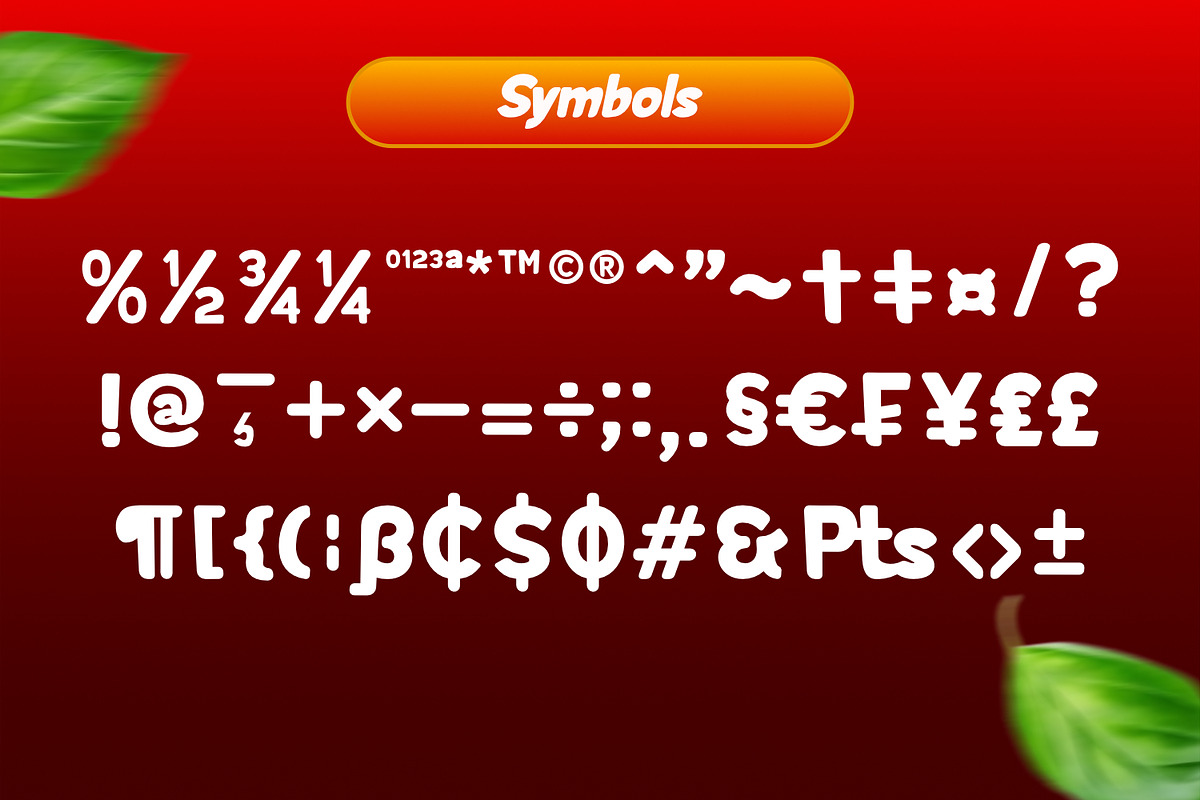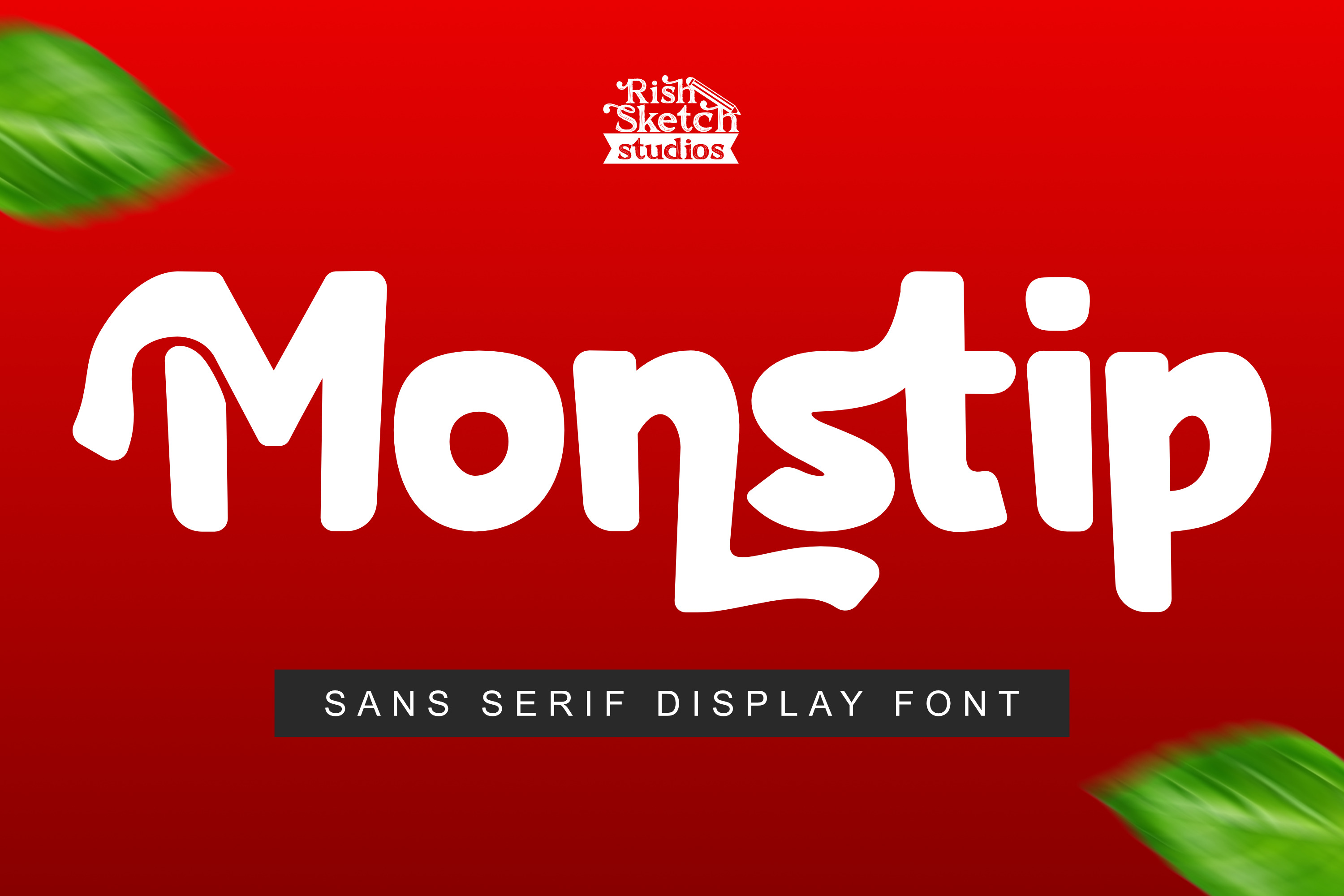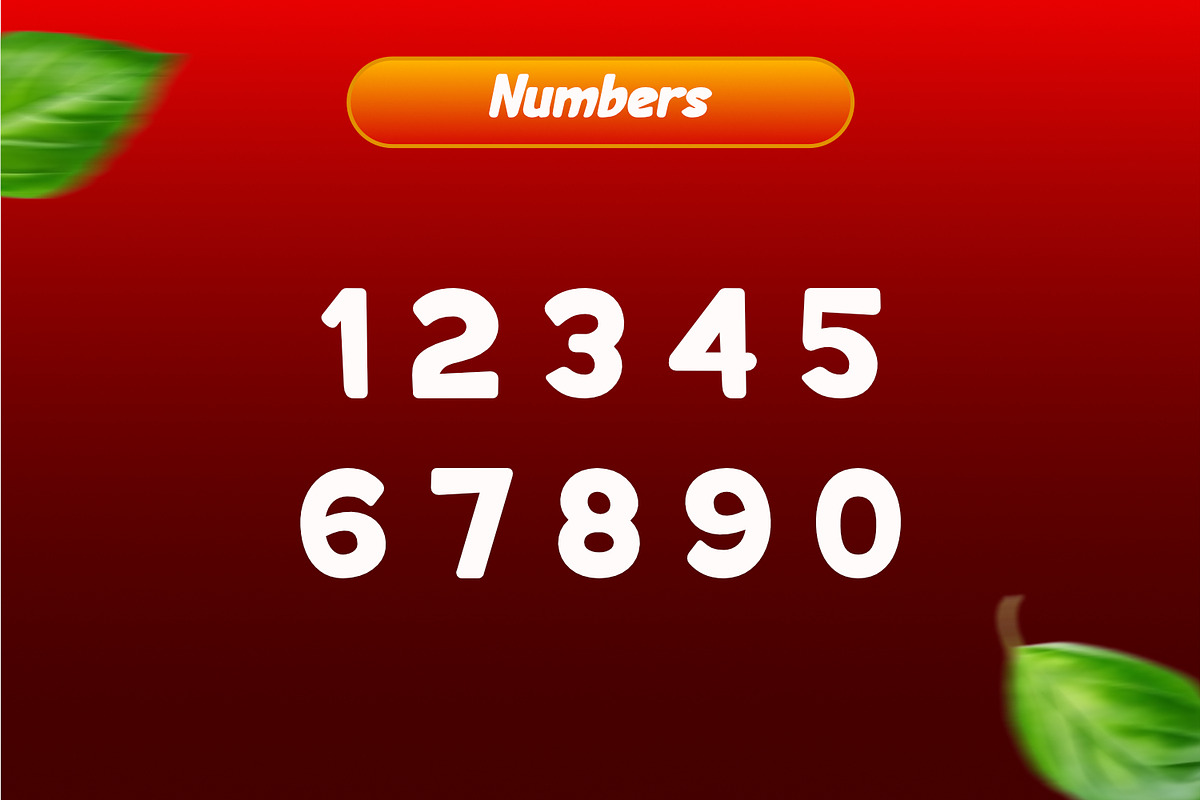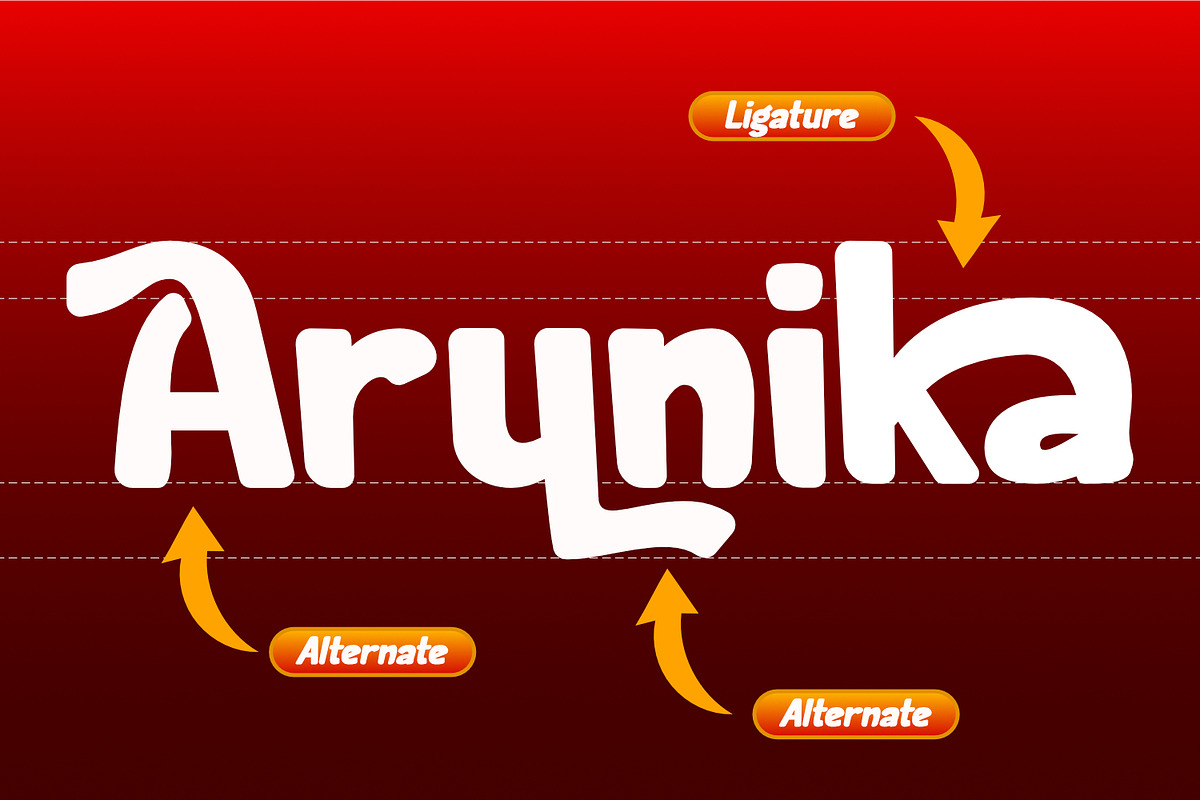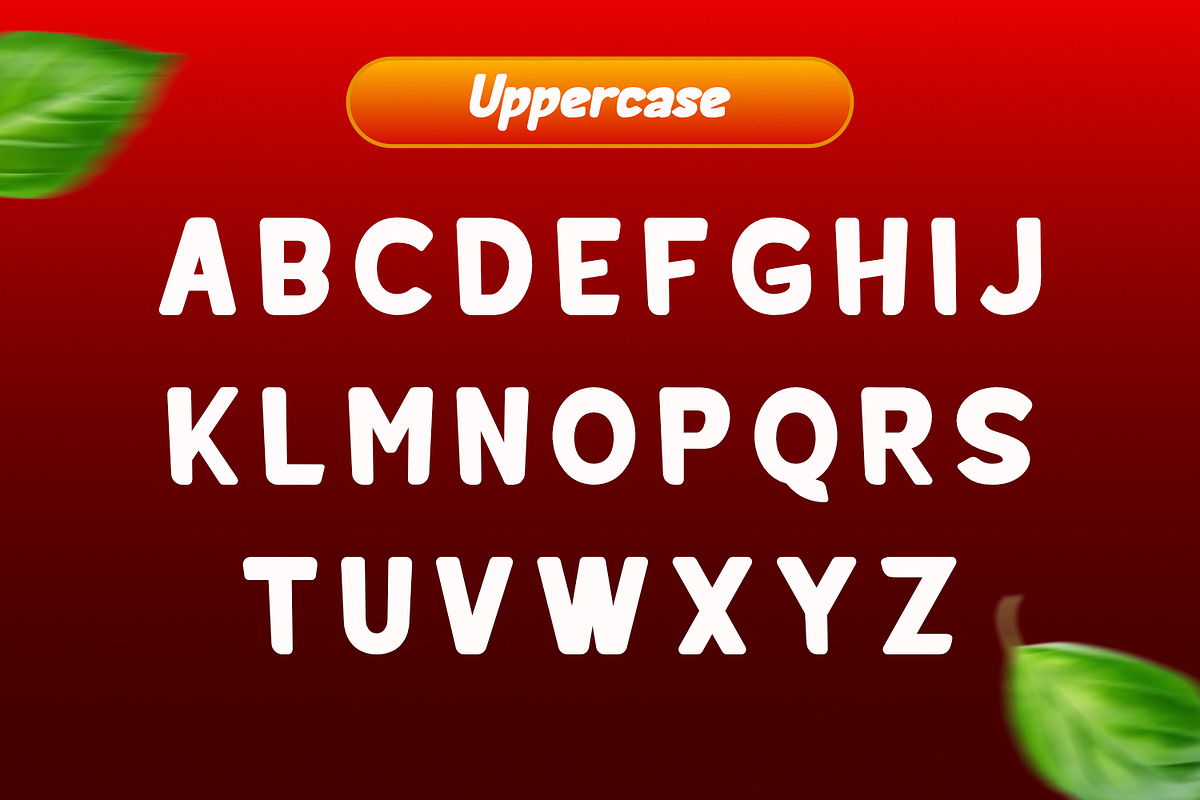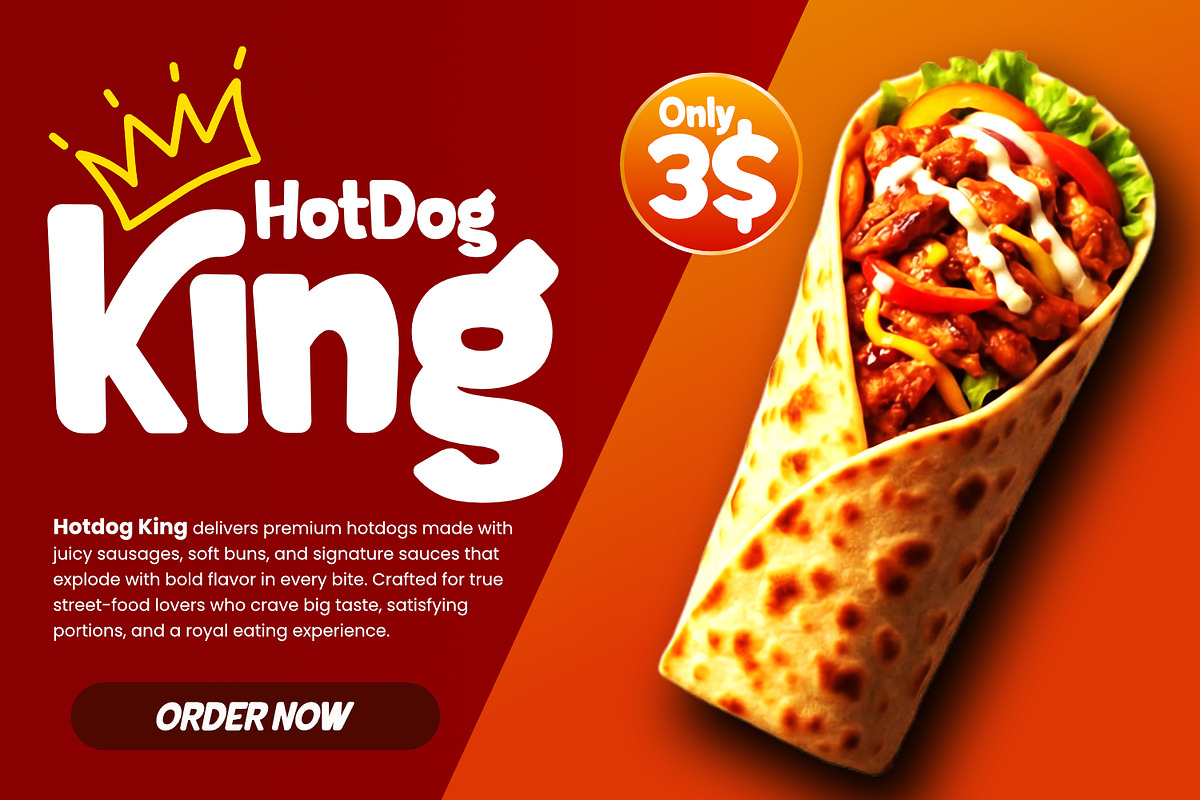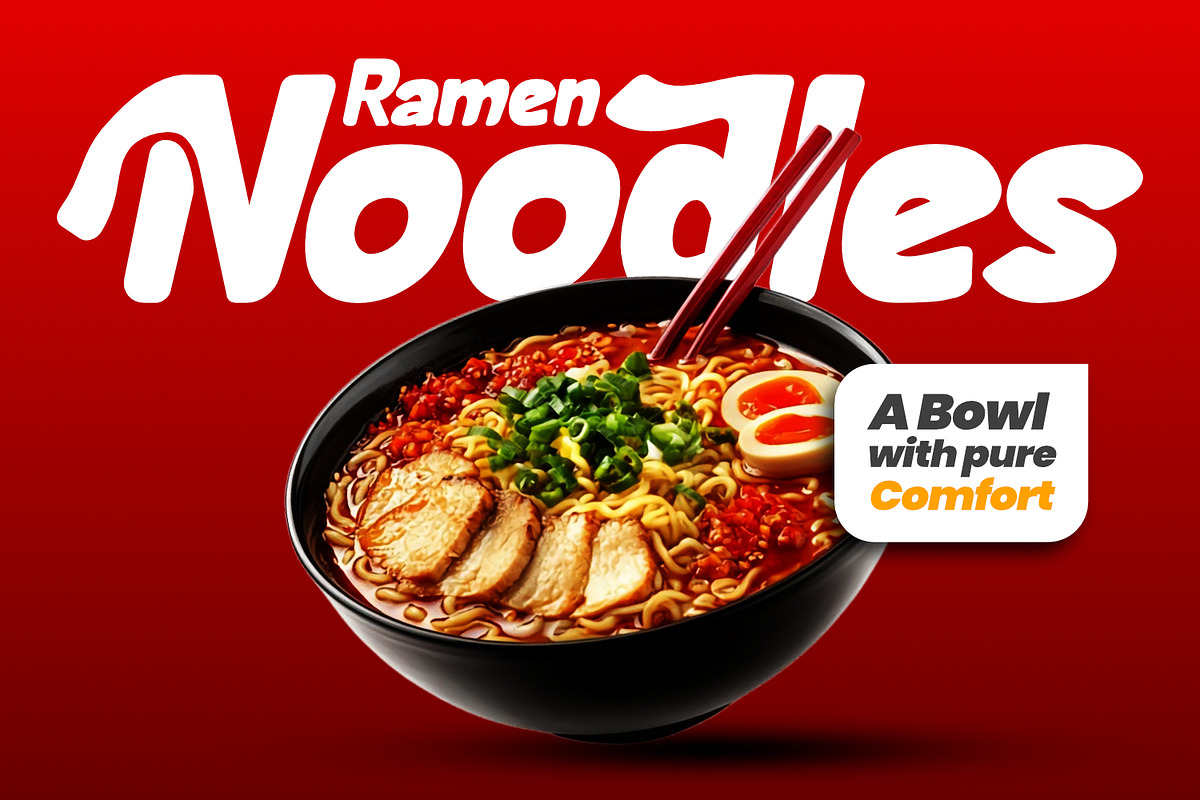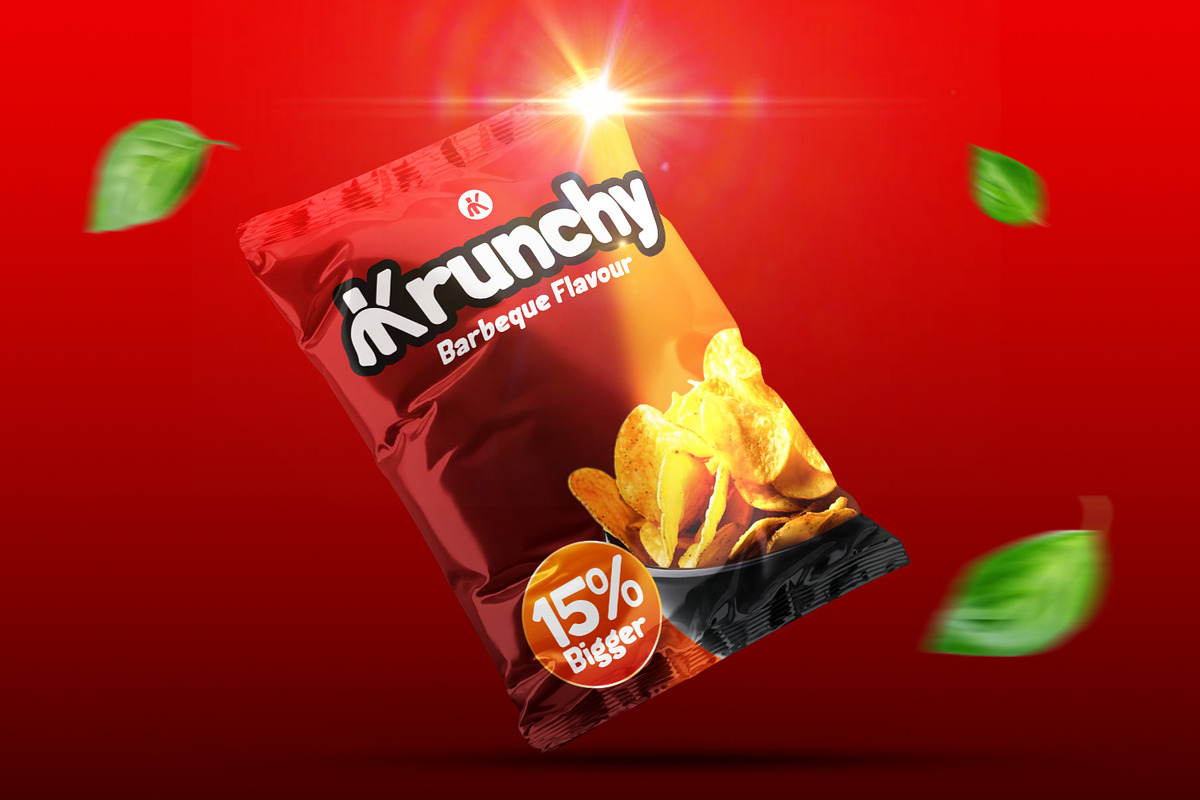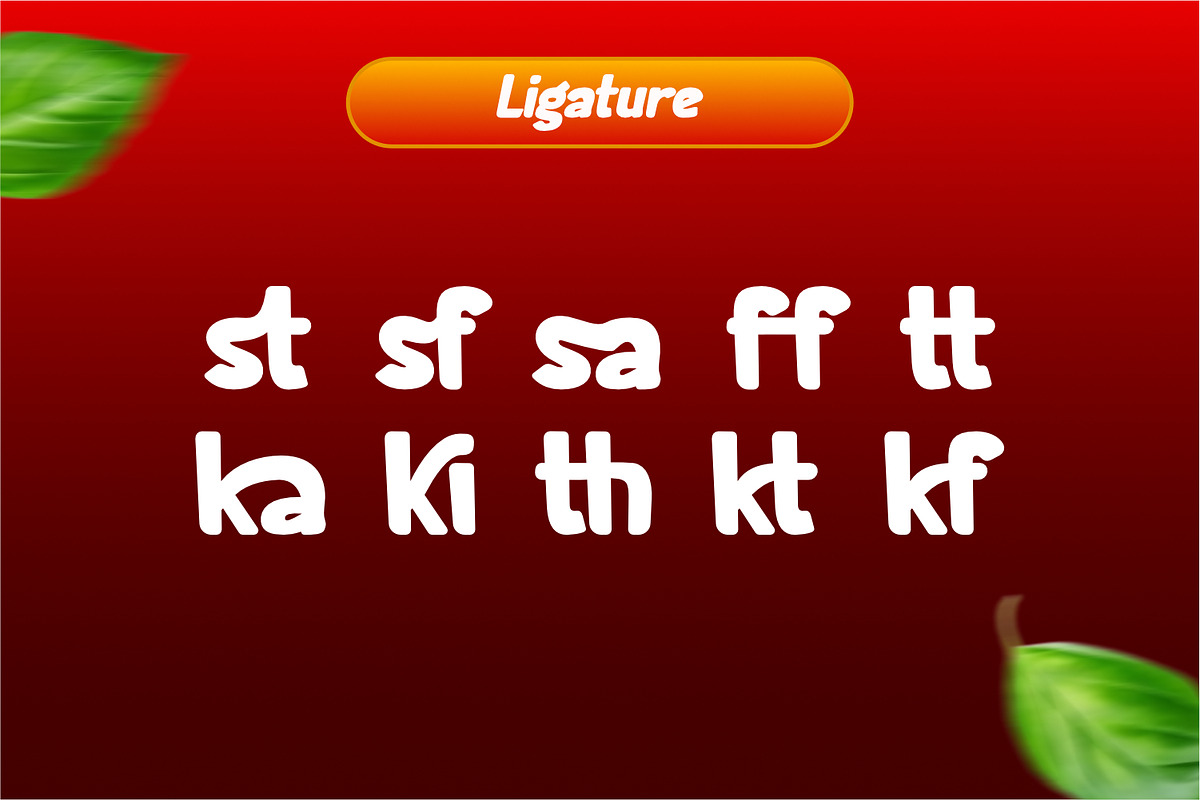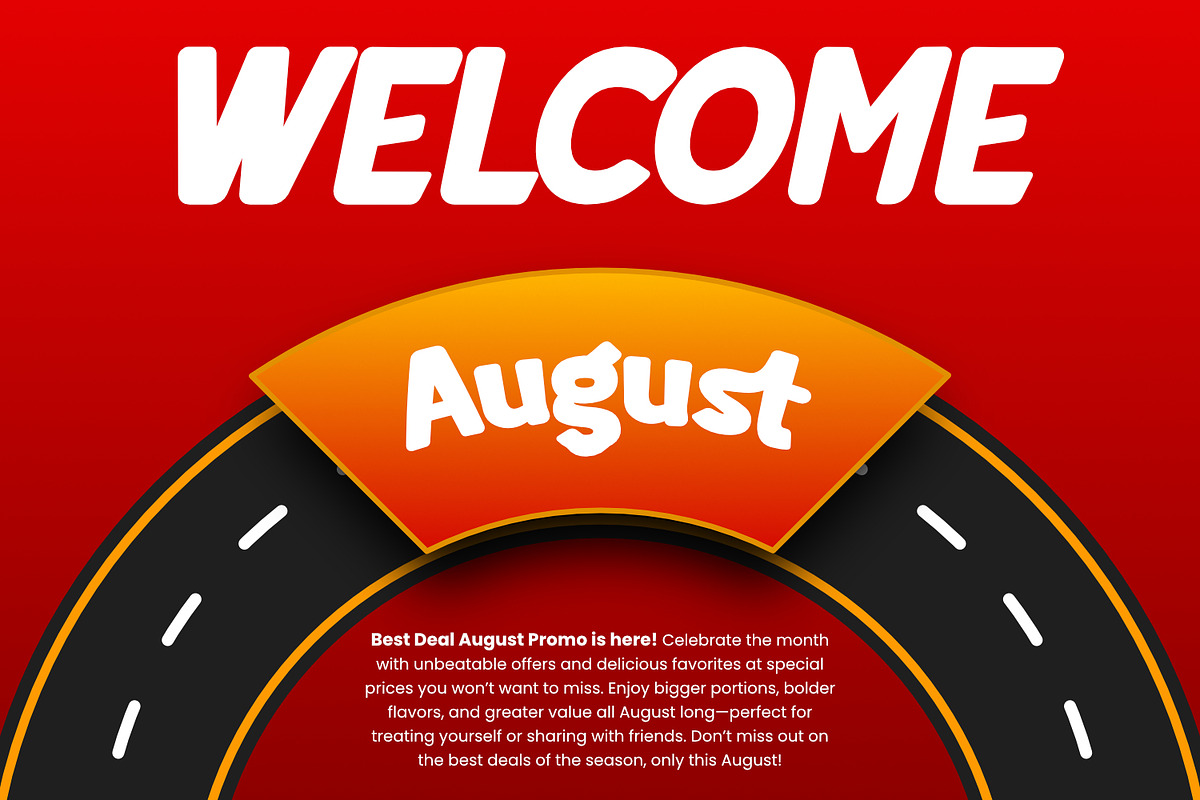
Moonstip - Sans Serif Display Font
Moonstip - Sans Serif Display Font, from Rishsketch Studios, is a premium Sans Serif Display Font, perfect for any project that requires a distinctive, and premium feel.
Ligature, Alternate & Multilingual